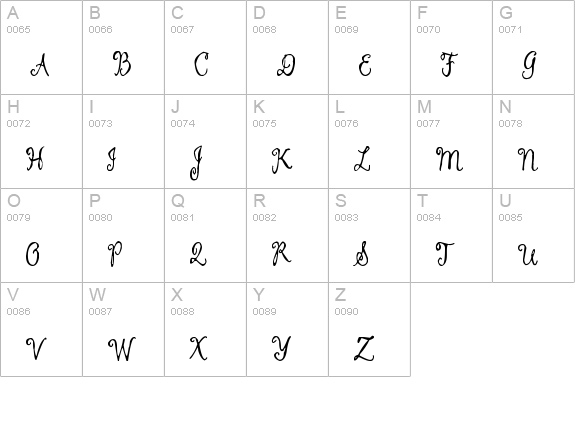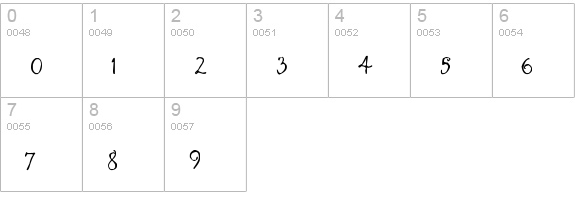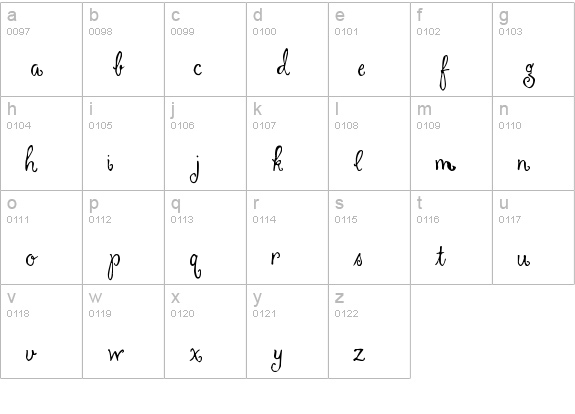
Want You Back Font Details
Introducing Want You Back font, a stunning typeface that exudes elegance and charm. This font is perfect for adding a touch of sophistication to your designs, whether for invitations, branding, or social media graphics. Want You Back features delicate lines and graceful curves that give it a timeless appeal. The best part? Want You Back font is completely free to download at FontsMarket.com. So, you can elevate your projects without breaking the bank. Don't miss out on the opportunity to enhance your designs with this beautiful and versatile font. Download Want You Back today and let your creativity shine!